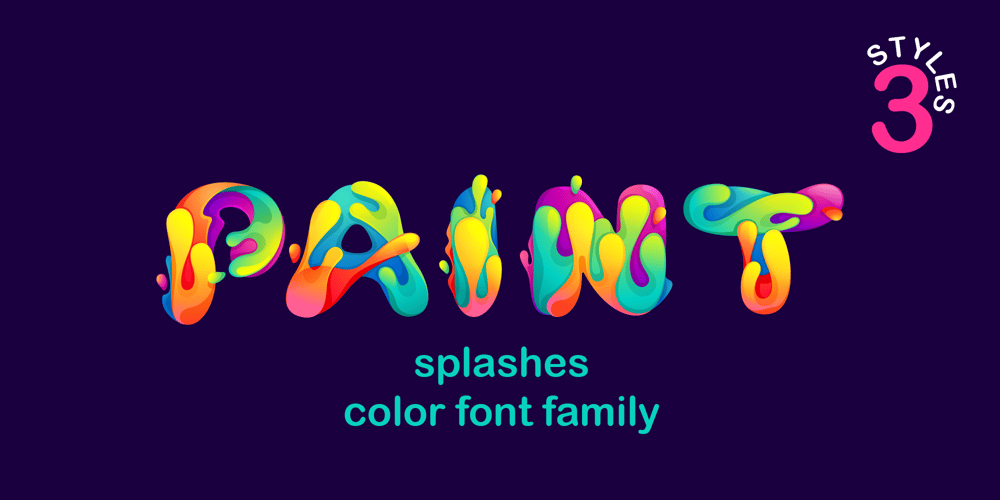
Paint Splashes Font Family was designed by Roman Korolev and published by Kaer. Paint Splashes contains 4 styles and family package options. Hey, friends! I’m here for you with my new colored font Paint Splashes Color Font. All the letters in this font are colored brightly and vividly with colors overlay. Multicolor icon with glow and gradients. Perfect for positive art, children design, vibrant advertising, juice packaging, colorful identity.*You can use color fonts in PS since CC 2017, AI since CC 2018, ID since CC 2019, QuarkXPress since 2018, Pixelmator, Sketch, Affinity Designer Since macOS 10.14 Mojave, Paint.NET Windows only.**Please note that the Canva doesn’t support color fonts!*What’s included?* 3 Colored and B&W styles* Numbers* Symbols* PunctuationIf you have any questions or issues, please contact me: kaer.pro@gmail.com Best, Roman.